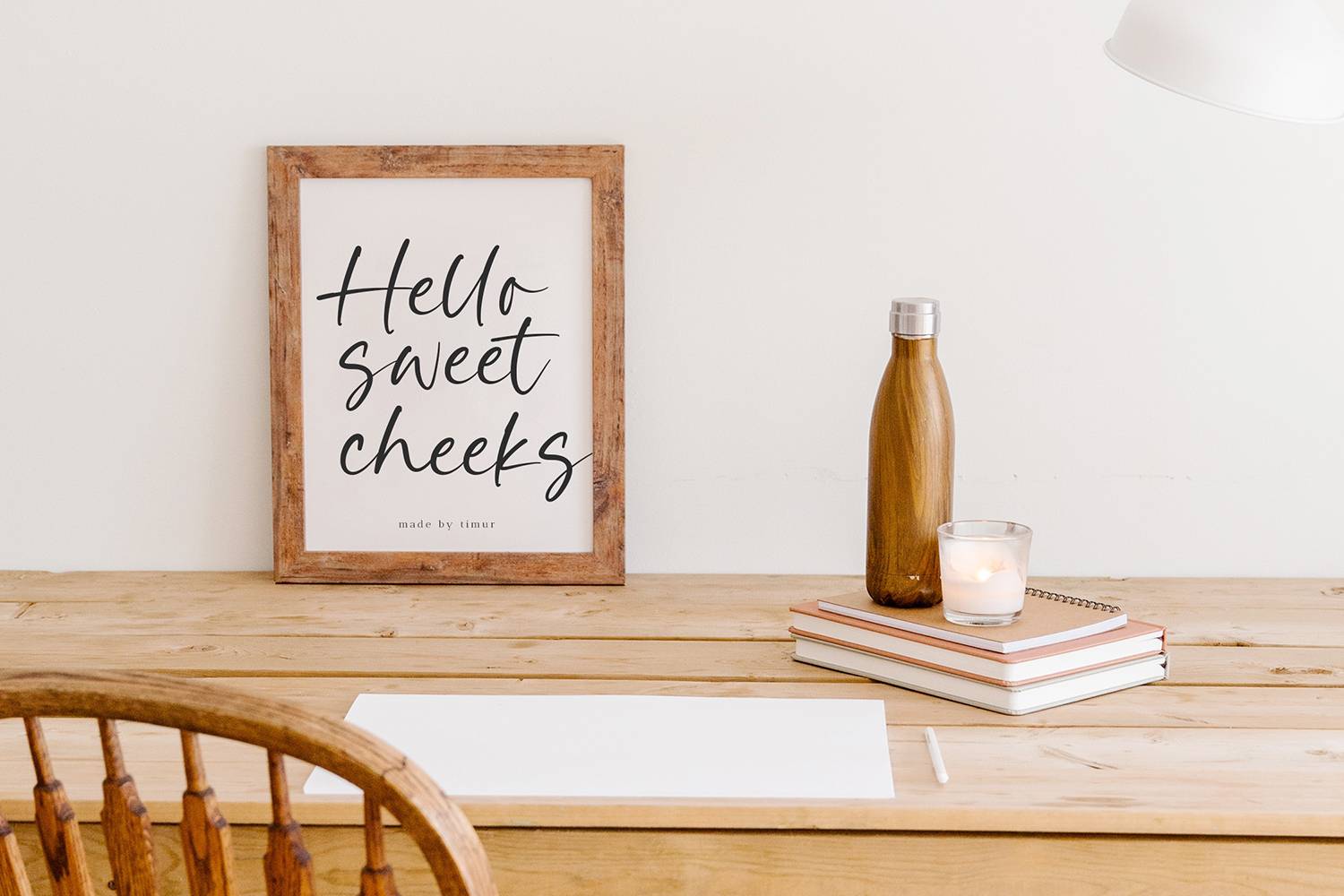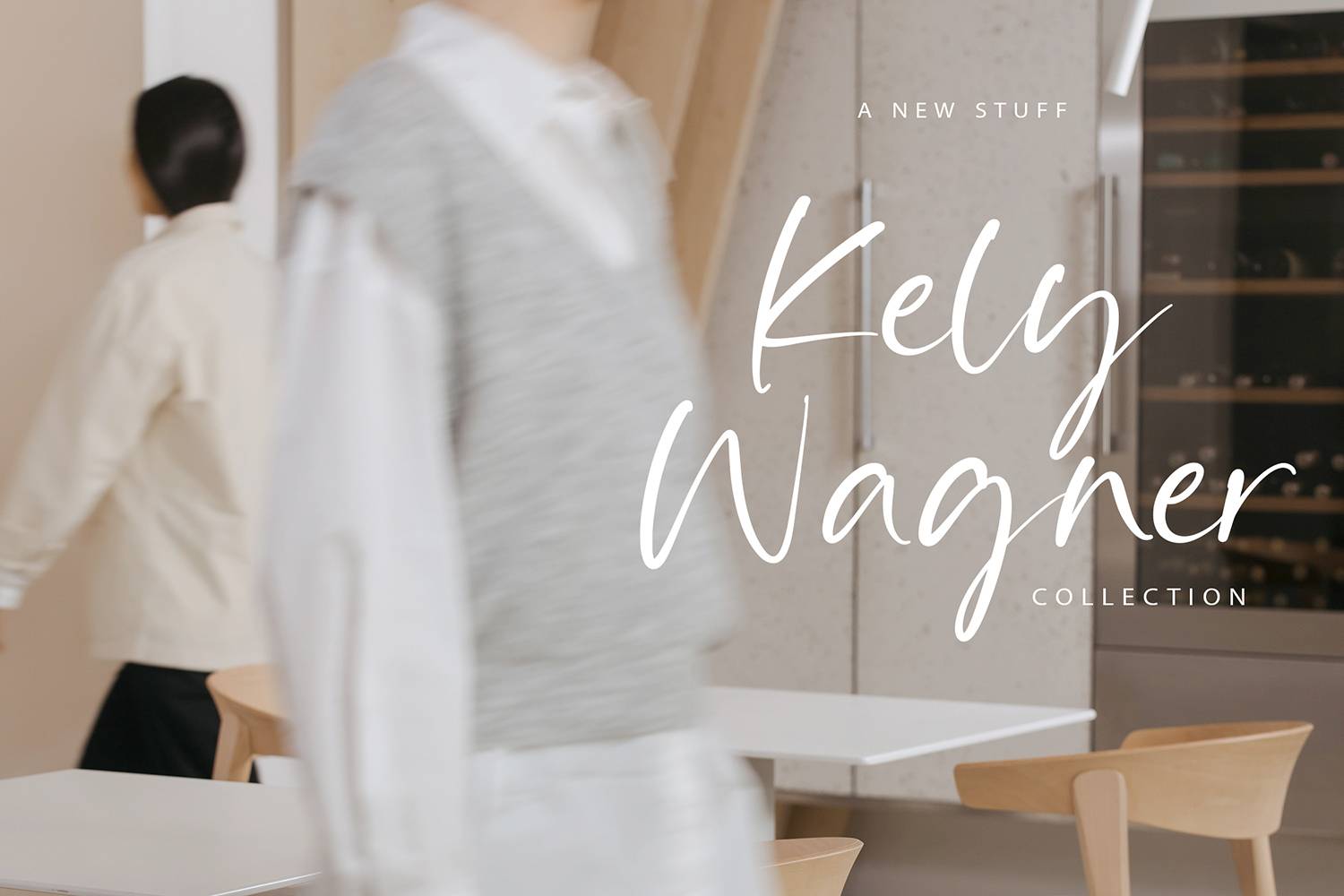
Something Basic is a light, casual script font with a handwritten feel, characterized by its slender, flowing strokes and slightly irregular letterforms. Its airy and informal style makes it ideal for personal branding, creative projects, or modern lifestyle designs where a friendly, approachable tone is desired. This font works best for headlines, logos, and invitations, adding a touch of elegance without feeling overly formal.
Something Basic Font
About Something Basic Font